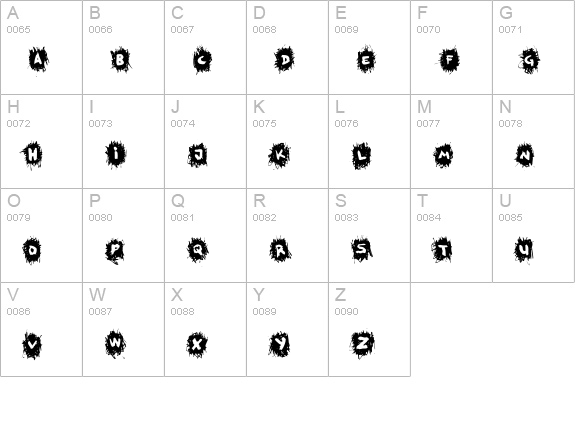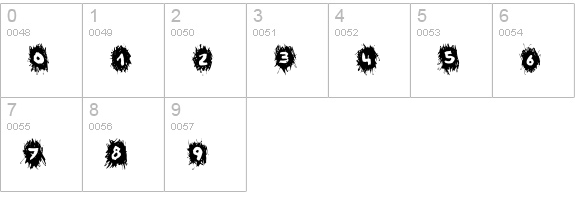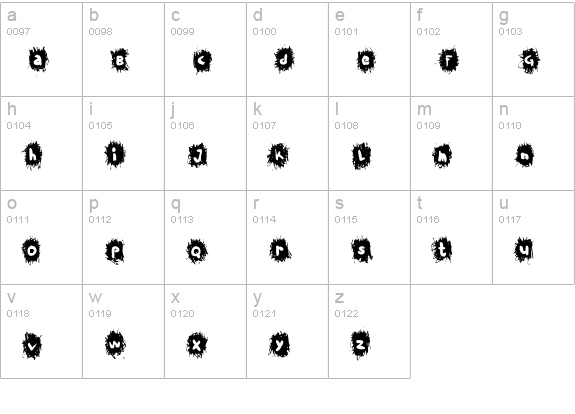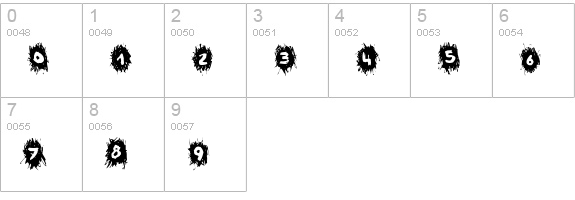
Introducing the mesmerizing TPF Krikkel Krakkel font – a true masterpiece of design that will captivate your audience and elevate your projects to new heights. This exceptional font is the perfect blend of creativity and precision, delivering a unique and eye-catching visual experience. With its intricate and elaborate strokes, TPF Krikkel Krakkel font exudes a sense of elegance and sophistication. Each letter is meticulously crafted, showcasing the skill and dedication of its creator. Whether used for headlines, logos, or body text, this font is guaranteed to make a lasting impression. But what sets TPF Krikkel Krakkel font apart from the rest is its versatility. It effortlessly adapts to any style or concept, whether it be a vintage-inspired design, a modern and sleek brand identity, or an artistic composition. This font truly knows no boundaries, allowing you to unleash your creativity without limitations. And the best part? TPF Krikkel Krakkel font is available for free download exclusively at FontsMarket.com. Yes, you heard it right – this remarkable font can be yours without spending a dime. Say goodbye to expensive licensing fees and hello to endless possibilities. FontsMarket.com offers a seamless and user-friendly experience, allowing you to effortlessly access TPF Krikkel Krakkel font and explore a wide range of other high-quality fonts. With just a few clicks, you can enhance your designs and elevate your projects to a whole new level. So why wait? Experience the magic of TPF Krikkel Krakkel font today and let your creativity soar. Download it for free at FontsMarket.com and embark on a journey of limitless design possibilities.